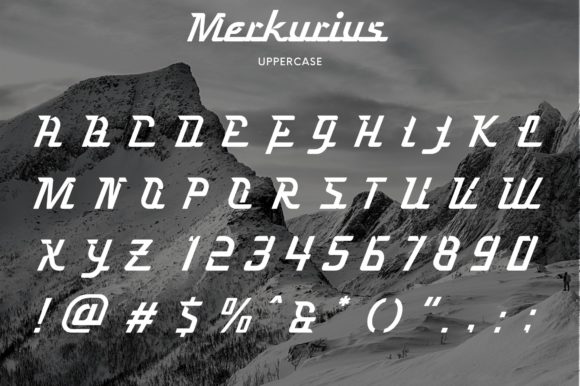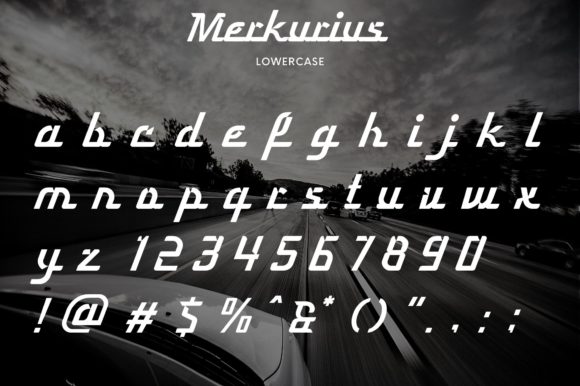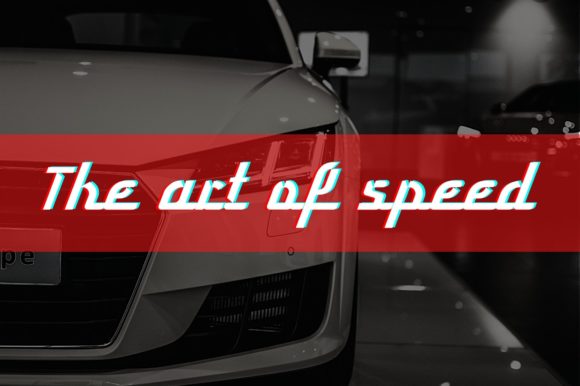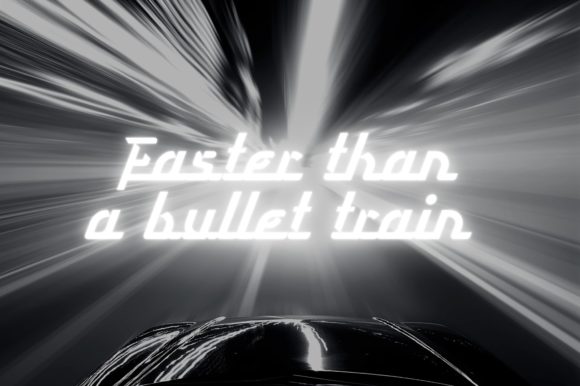
Introduction to Merkurius Font
Imagine yourself in the middle of a creative project, surrounded by scribbled notes and scattered ideas. You’re on the hunt for the perfect font to give your design that extra oomph. Suddenly, you stumble upon a font that makes your eyes light up – the Merkurius Font.
This bold and unique display font has been making waves in the design community, and for good reason. With its strong characters and smooth edges, Merkurius Font is the perfect design resource for any creative project. Whether you’re looking to create a striking logo or add some flair to your product branding, this font is sure to deliver.
What sets Merkurius Font apart is its versatility. With a vibrant, high-quality design that can be easily downloaded and customized, this font is a valuable asset for designers of all levels. Plus, its transparent background makes it easy to integrate into any design project, ensuring a seamless and professional finish.
Key Features of Merkurius Font
- High-quality font with a transparent background, ideal for creative projects and design resources.
- Unique characteristics include a modern and sleek design, making it perfect for contemporary creative projects and design resources.
- Designed to be highly legible, even at small font sizes, making it an excellent choice for a wide range of design applications.
Honest Review: Merkurius Font
As a designer, I’m always on the lookout for high-quality design resources that can elevate my creative projects. The Merkurius Font is one such find that has caught my attention. Upon downloading and using it, I’ve found that it’s a solid addition to any designer’s arsenal.
- ✨ High-quality glyphs and characters that are crisp and clear.
- ✨ A wide range of weights and styles to choose from, making it versatile for various design applications.
- ✨ The font is highly legible, making it perfect for body text and headings alike.
- ⚠️ The font is not suitable for small-scale designs, as the characters can appear pixelated at low resolutions.
- ⚠️ The transparent background option can be a bit finicky to work with, especially when combined with other design elements.
Overall, I’m impressed with the Merkurius Font. While it may have some limitations, its high-quality design and versatility make it a valuable resource for designers. With a bit of creative experimentation, it can add a touch of elegance to any design project.
Merkurius Font
Merkurius Font is a high-quality design resource ideal for creative projects requiring a unique and professional touch. Its transparent background makes it easily customizable to fit your design needs.
For optimal results, use Merkurius Font in conjunction with high-quality images and graphics. Common use cases include:
- Logo design and branding
- Infographics and data visualization
- Brochures and marketing materials
Compared to Merkurius Font, Merriweather Font has a more traditional and elegant look, making it suitable for formal and professional designs. However, Merkurius Font has a more modern and sleek design, making it ideal for contemporary and creative projects.